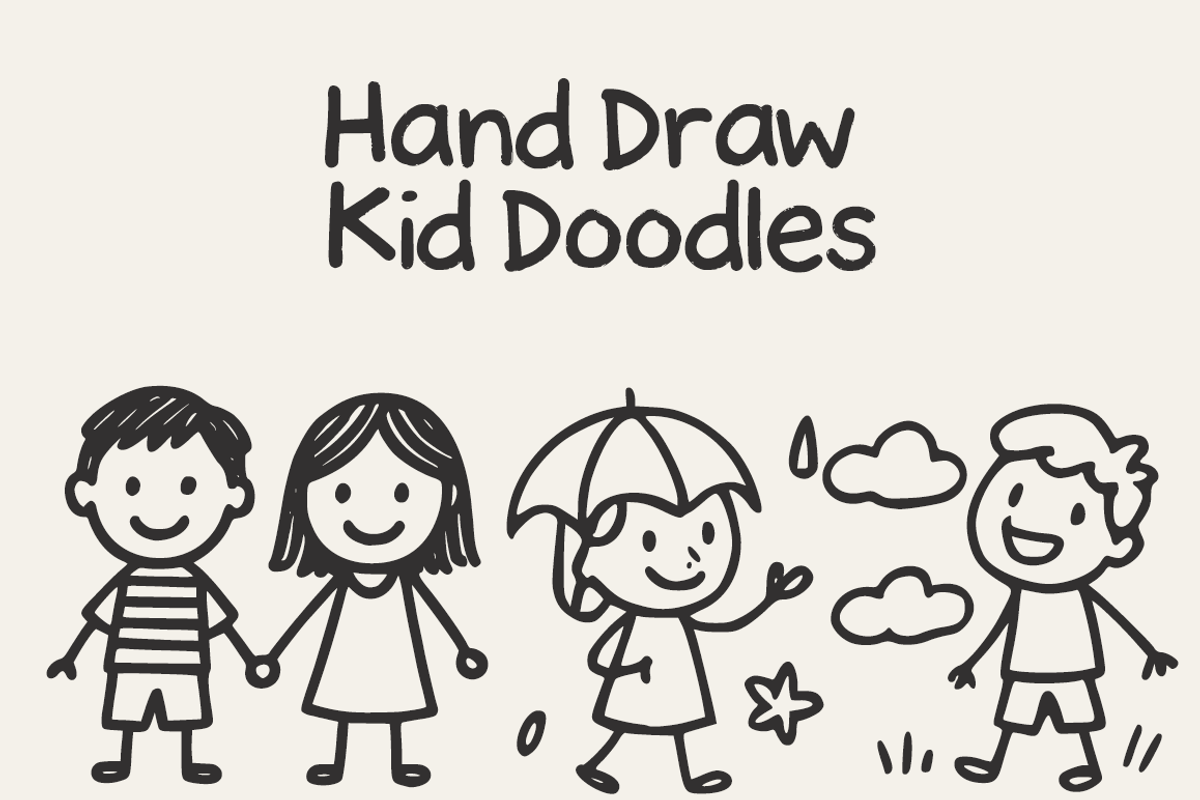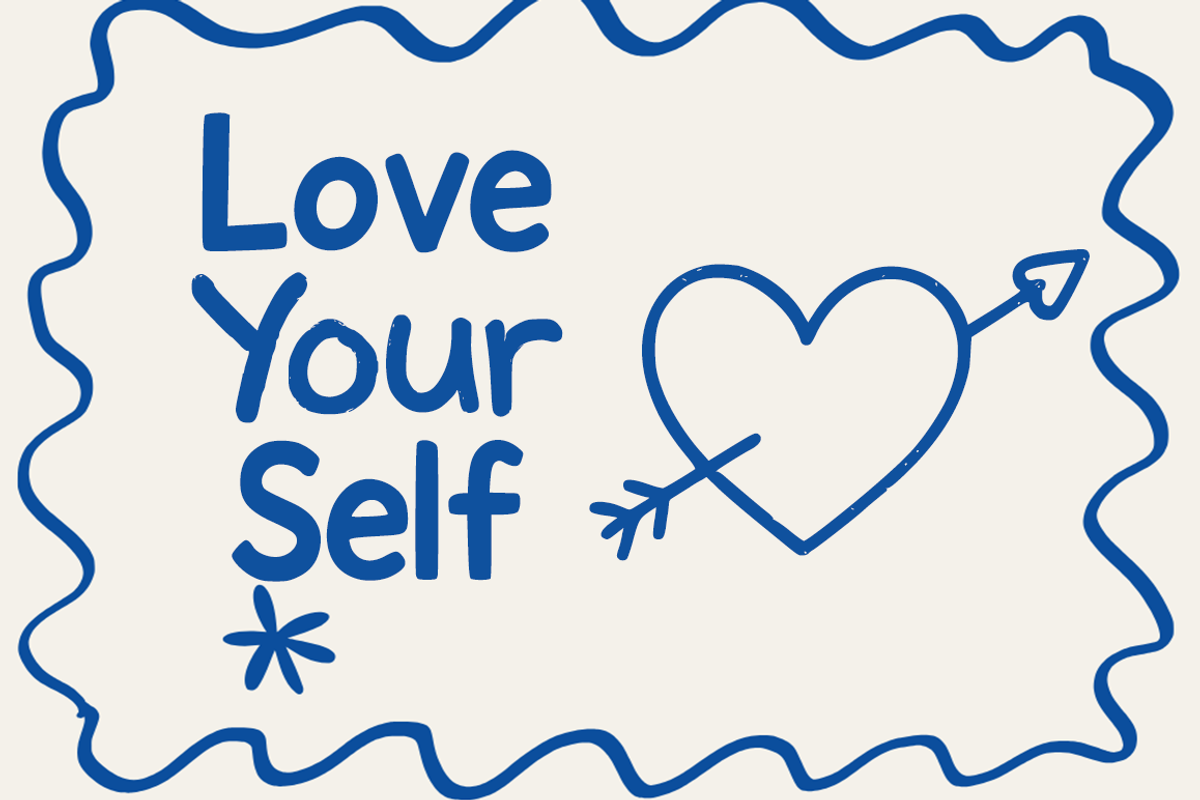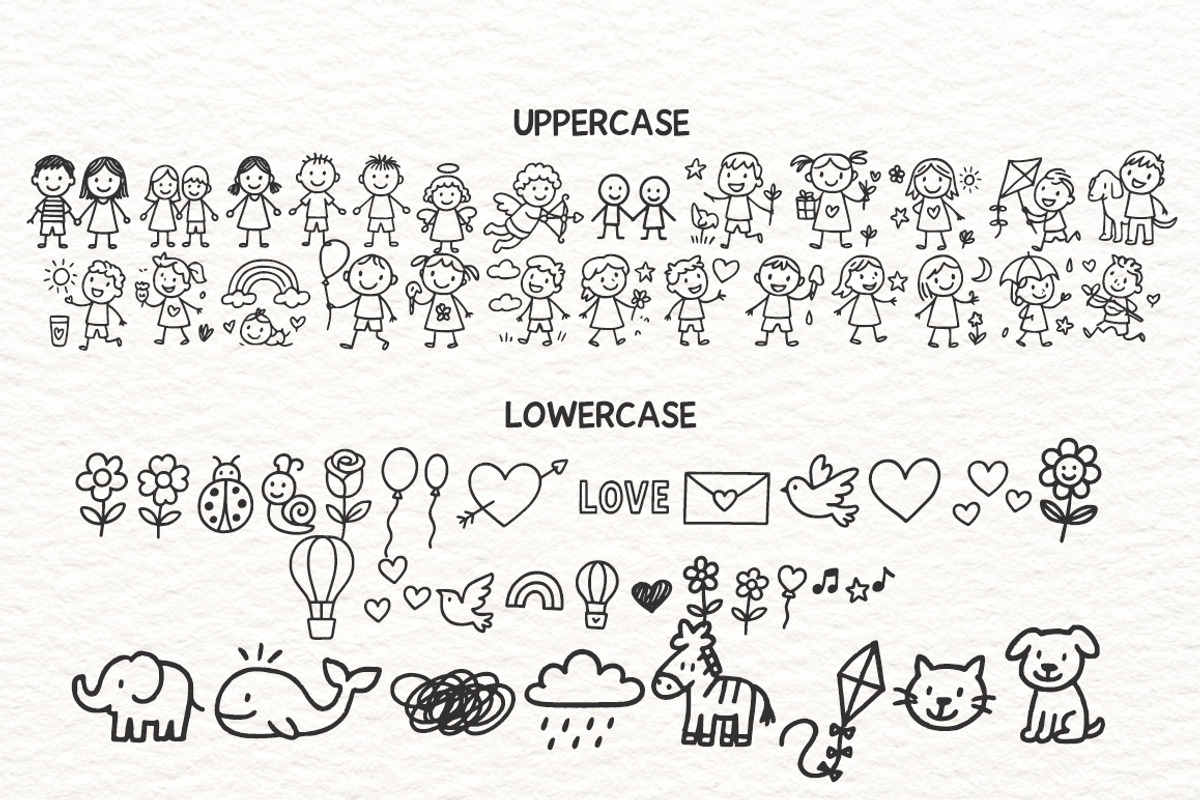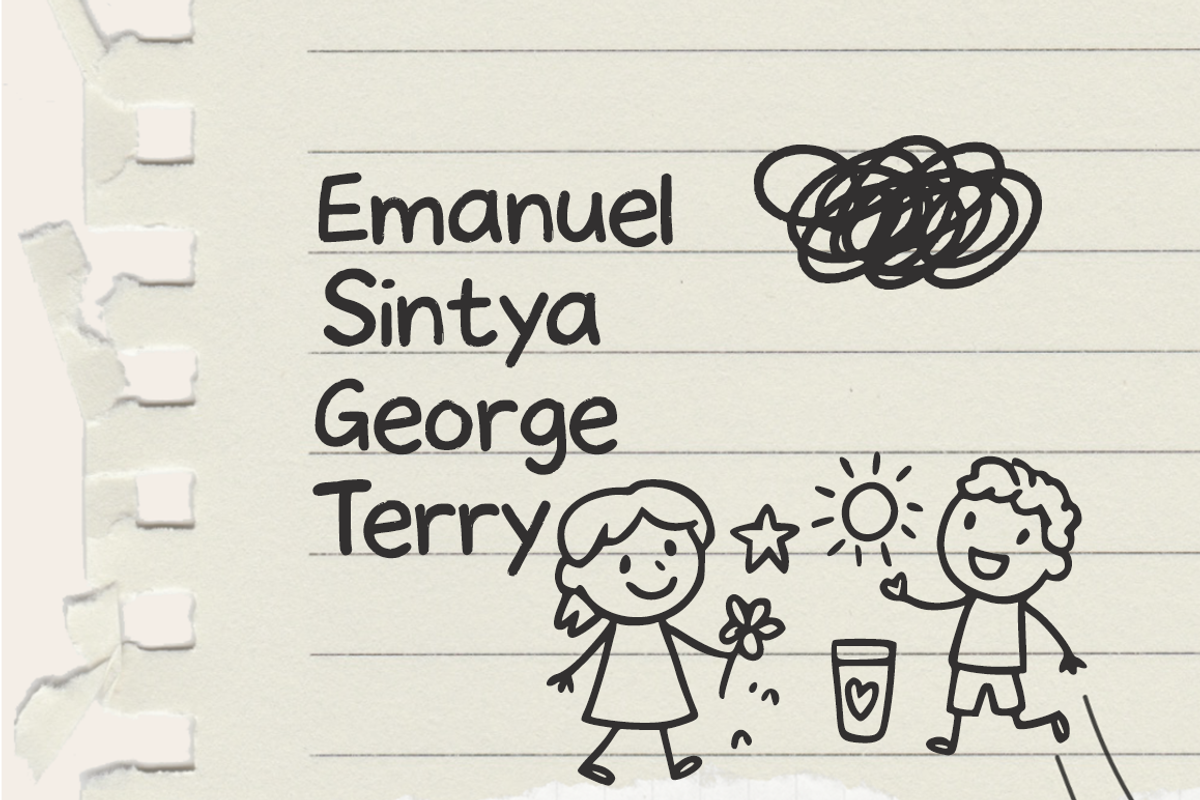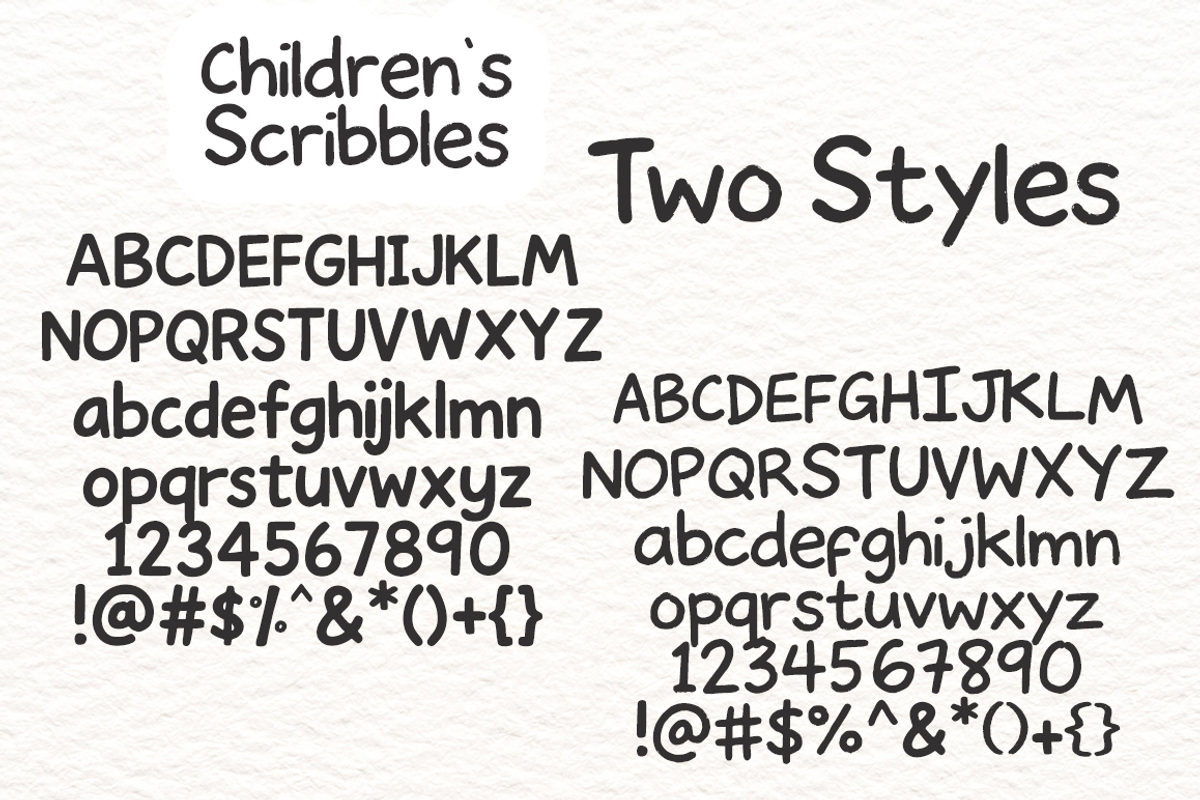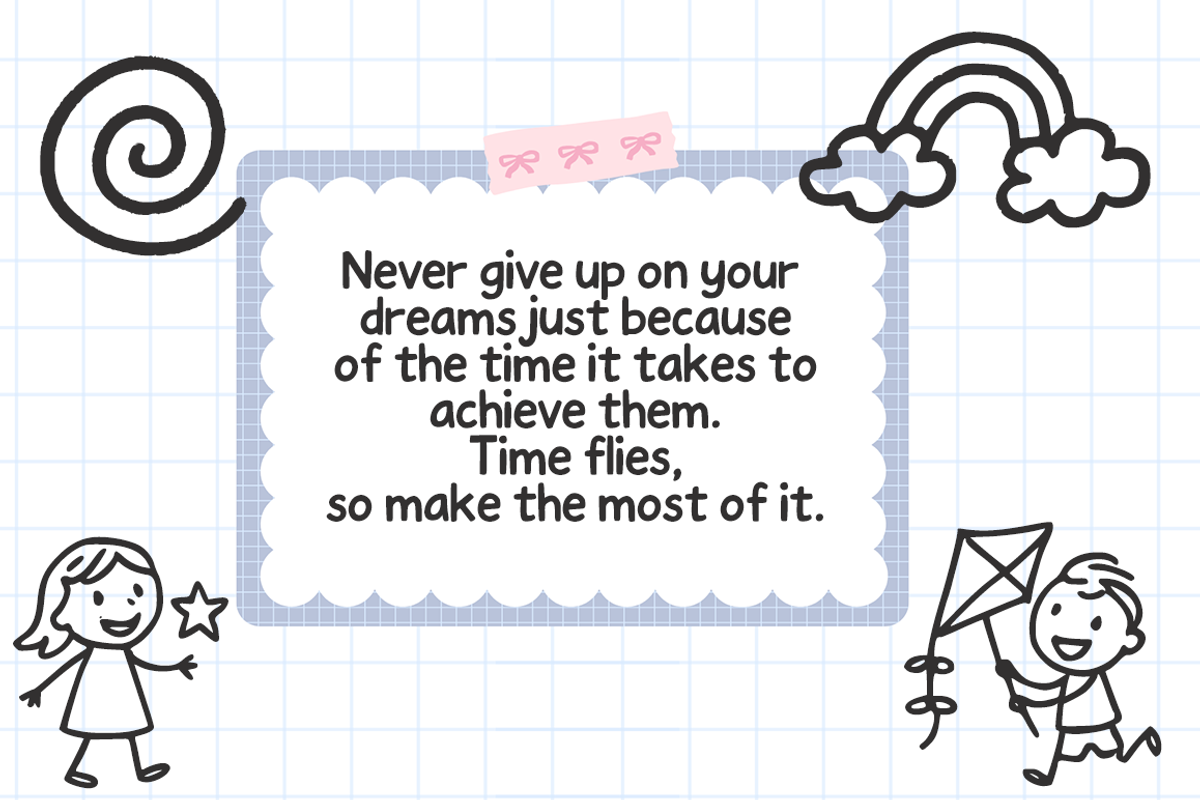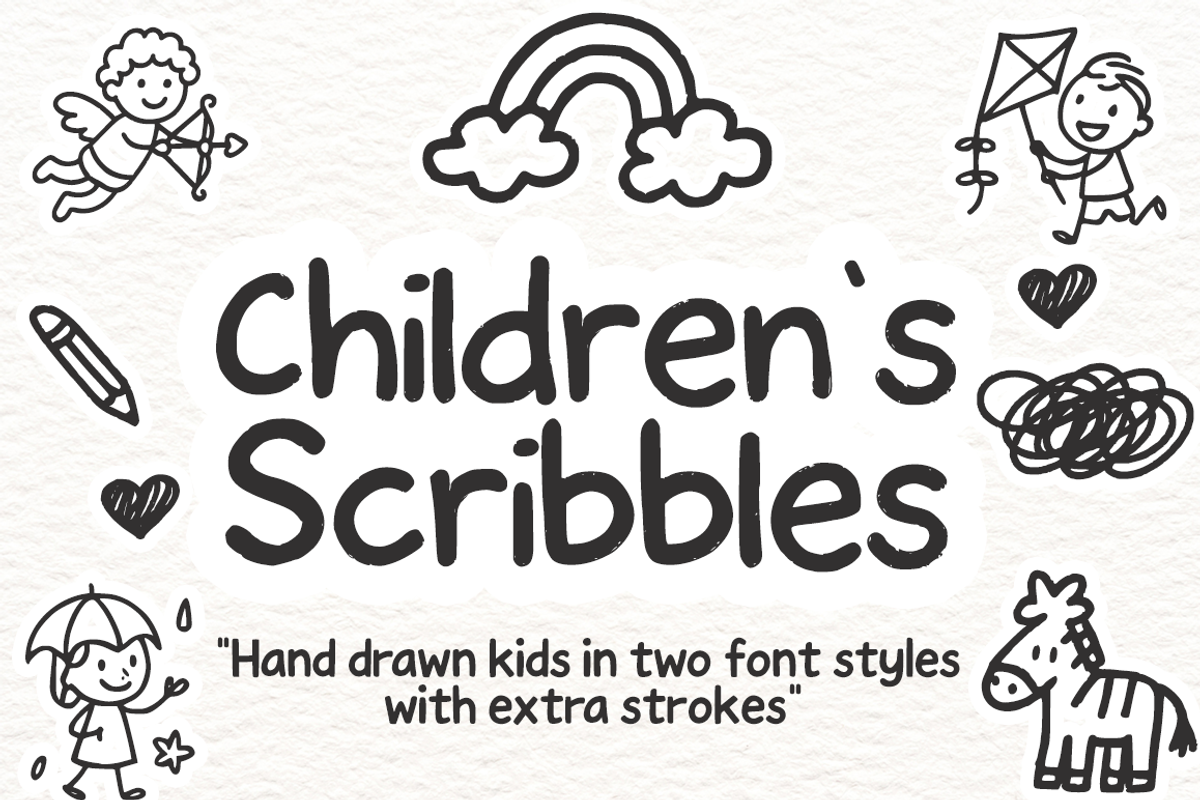
Children’s Scribbles Fun Kids Doodle
Children’s Scribbles – Fun Kids Doodle Font Children’s Scribbles is a playful handwritten font featuring natural children–style scribbles and simple doodle illustrations. Each letter is designed with loose strokes and rounded shapes to create a friendly, spontaneous, and child–like appearance.
This font includes a collection of adorable doodle elements such as kids, animals, clouds, stars, and other playful extras to enhance fun classroom–themed layouts and creative children projects.
Perfect for educational printables, worksheets, school materials, posters, and kid–friendly visual designs.